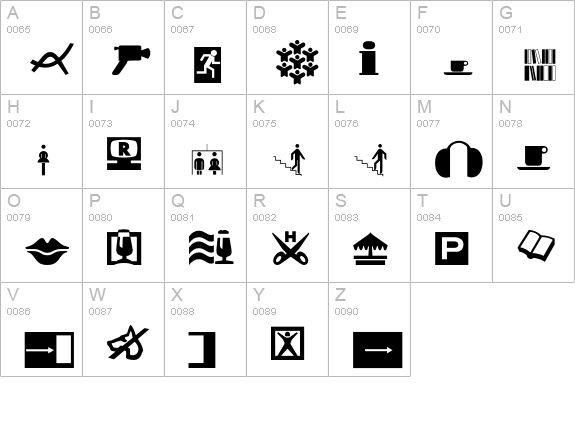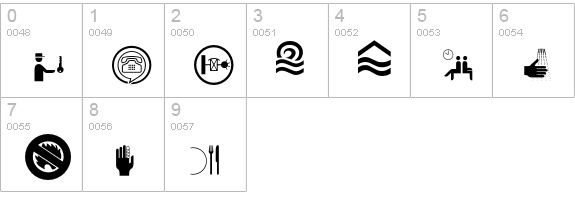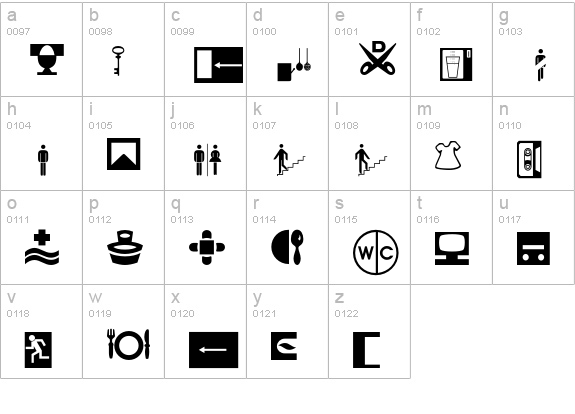
CommunicationsP07 Font Details
CommunicationsP07 is a modern and stylish font that is perfect for all your communication needs. With its sleek and professional design, this font is sure to make your projects stand out. Whether you are creating a website, designing a logo, or crafting a presentation, CommunicationsP07 is the perfect choice. One of the best things about CommunicationsP07 is that it is available for free. You can easily download this font at FontsMarket.com and start using it right away. With its clean lines and versatile style, CommunicationsP07 is a great addition to any designer's toolkit. Don't miss out on the opportunity to enhance your projects with the sleek and modern look of CommunicationsP07. Download it for free today at FontsMarket.com and take your designs to the next level.